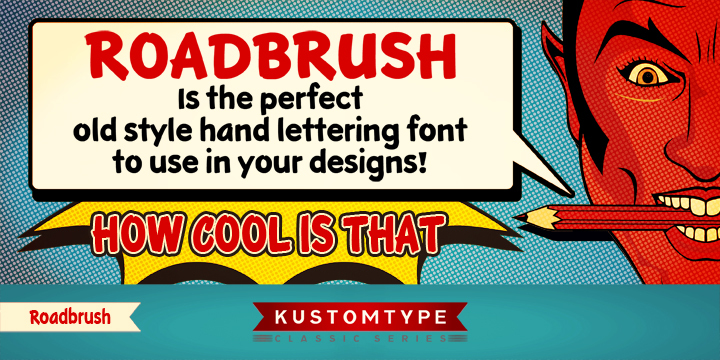
KTF-Roadbrush by Kustomtype is a free cartoon display font with the broad, ink-loaded look of hand-painted sign lettering and softly uneven edges. The chunky capitals wobble through tight joins and shifting widths.
Designers working on youth entertainment and casual food brands will find it well suited to snack packaging, game graphics, and event posters, where the blunt forms can echo bold mascot artwork. In publishing, it makes an energetic choice for children's activity-book covers and comic section headings, where the painted shapes can become part of the illustration instead of sitting apart as neutral text.